There’s something almost magical about opening a jar of homemade jam at your grandmother’s farmhouse, reading the hand-lettered label she carefully penned. That same warmth, authenticity, and earthy charm is exactly what rustic fonts bring to modern design work.
In a world increasingly dominated by sleek minimalism and sterile sans serifs, rustic fonts offer a refreshing return to organic textures and handcrafted beauty. They’re the typographic equivalent of reclaimed barn wood or a hand-thrown pottery mug – imperfect, authentic, and utterly captivating.
Whether you’re designing for a craft brewery, creating wedding invitations for a barn venue, or building a brand identity for an artisan bakery, rustic fonts can transform your work from merely professional to genuinely memorable.
In this comprehensive guide, we’ll explore everything you need to know about rustic fonts – from what makes them feel so authentic to how to use them effectively in your designs. Let’s dig in!
The Best Rustic Fonts to Try in 2026
Not all rustic fonts are created equal. Some lean vintage, others feel more farmhouse-chic, and still others capture that raw, weathered aesthetic perfectly. Here’s my curated list of the most stunning rustic fonts available right now:
Rustic Voyage – Sans & Script Font Duo
Rustic Voyage offers a perfect blend of sans-serif and script styles for rustic-inspired designs. This versatile font duo captures the essence of adventure, making it ideal for rustic branding projects and outdoor-themed graphics.
Rustic Farm Display Font
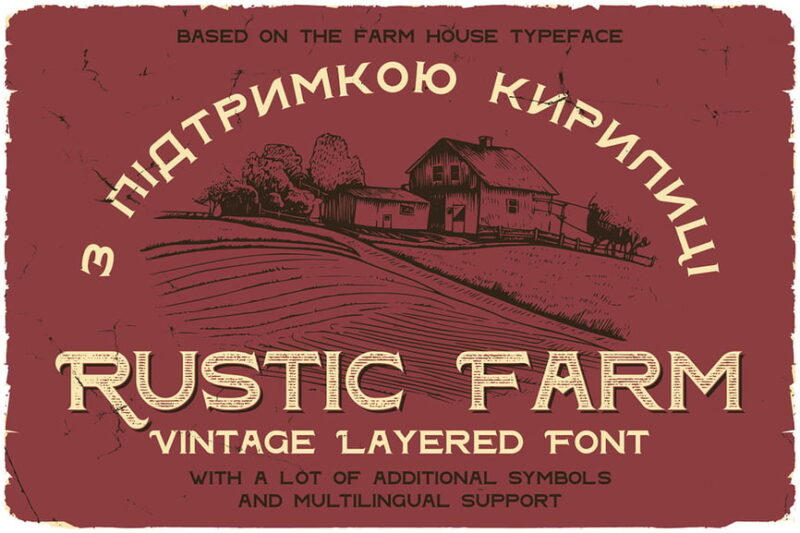
Rustic Farm Display Font brings a touch of rural charm to your designs. This serif typeface embodies the rustic aesthetic, perfect for farm-to-table branding or any project requiring a cozy, down-to-earth feel.
Wild & Noise – Rustic Vintage Serif Typeface
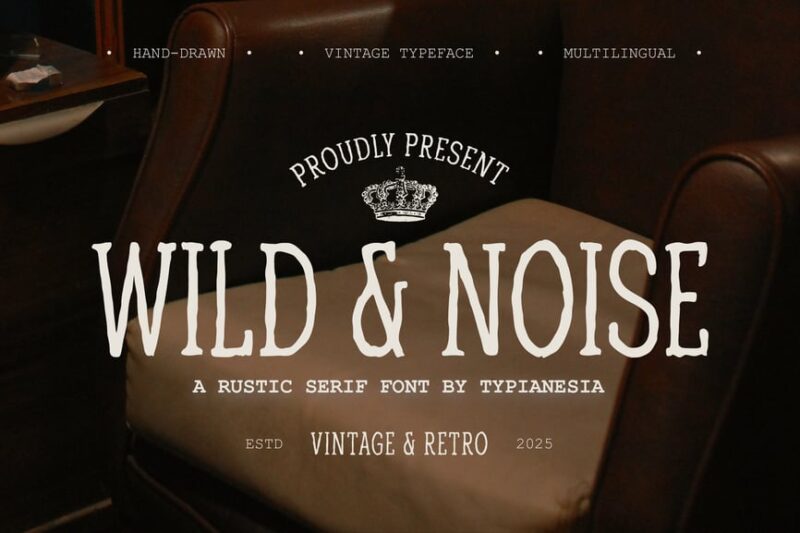
Wild & Noise is a rugged serif typeface that exudes vintage charm. This rustic font is perfect for designs that aim to capture the spirit of the wild west, offering a bold and weathered look for authentic rustic branding.
Norwes – Vintage Monoline Font
Norwes is a vintage monoline sans-serif that brings a coastal rustic vibe to your designs. This font’s clean lines and subtle vintage feel make it versatile for various rustic-themed projects, from beachside cafes to nautical branding.
Rustic Jack – A Vintage Font Duo
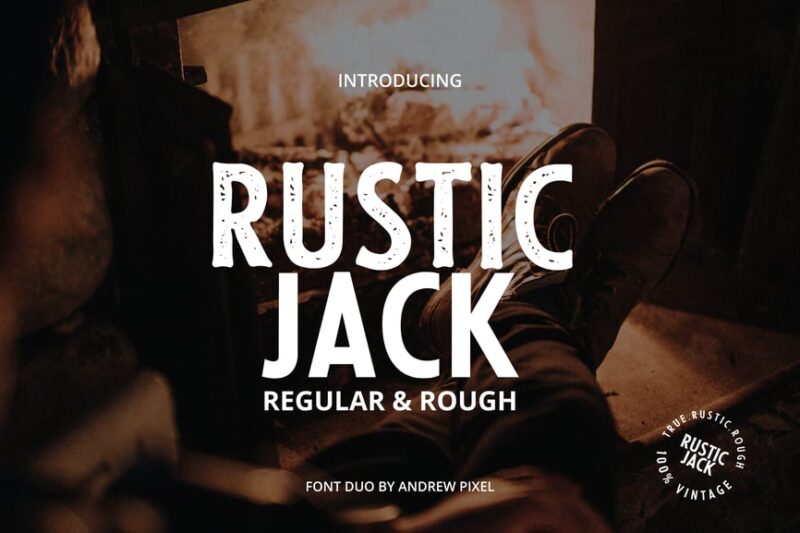
Rustic Jack offers a dynamic vintage font duo that combines sans-serif with western-inspired script. This versatile pair is perfect for creating rustic designs with a touch of old-world charm, ideal for labels, logos, and vintage-style branding.
Flavery – Vintage Slab Serif
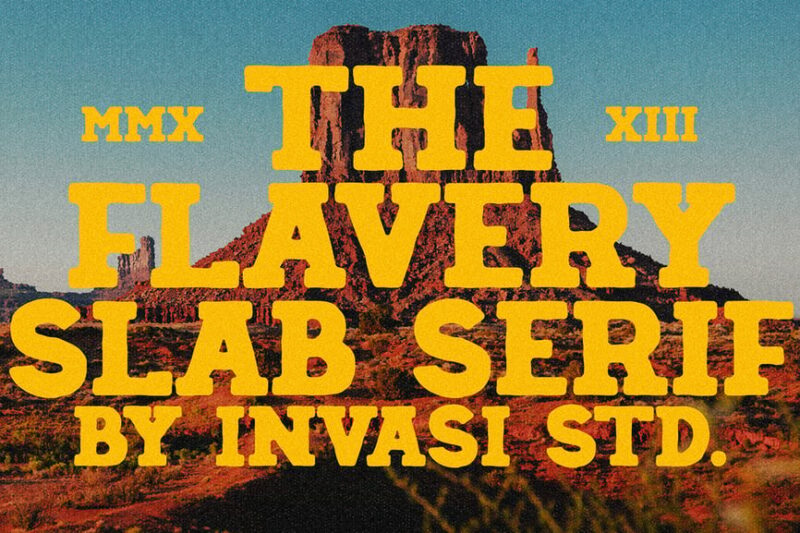
Flavery is a vintage slab serif that brings a western stamp-like quality to rustic designs. This decorative font is perfect for creating eye-catching headlines and logos with a distinct rustic, old-world feel.
Rustic – Handcrafted Font Family
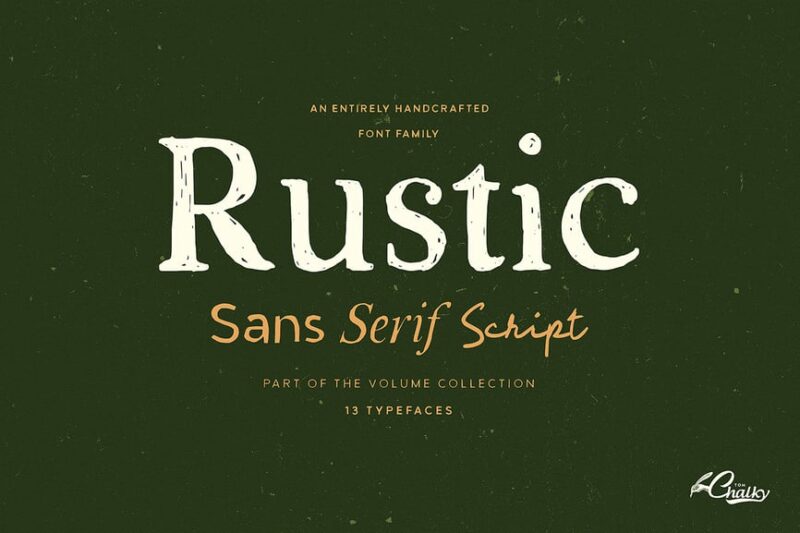
The Rustic Handcrafted Font Family offers a comprehensive set of rustic fonts, including serif, script, and sans-serif styles. This versatile family is perfect for creating cohesive rustic branding with its hand-drawn, textured character.
Rustic Printed – Vintage Font
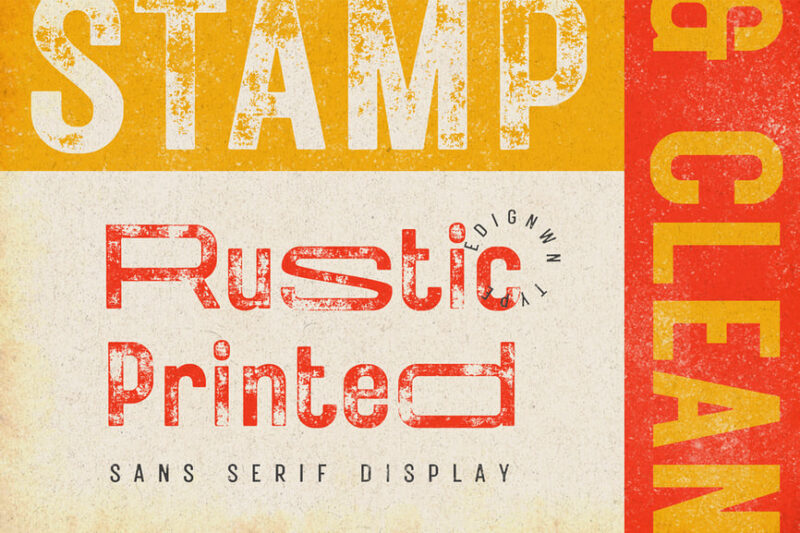
Rustic Printed is a vintage-inspired sans-serif that mimics old letterhead prints. This font brings an authentic rustic touch to designs, perfect for creating nostalgic, weathered-looking text in rustic-themed projects.
Wild Rustic Font Duo
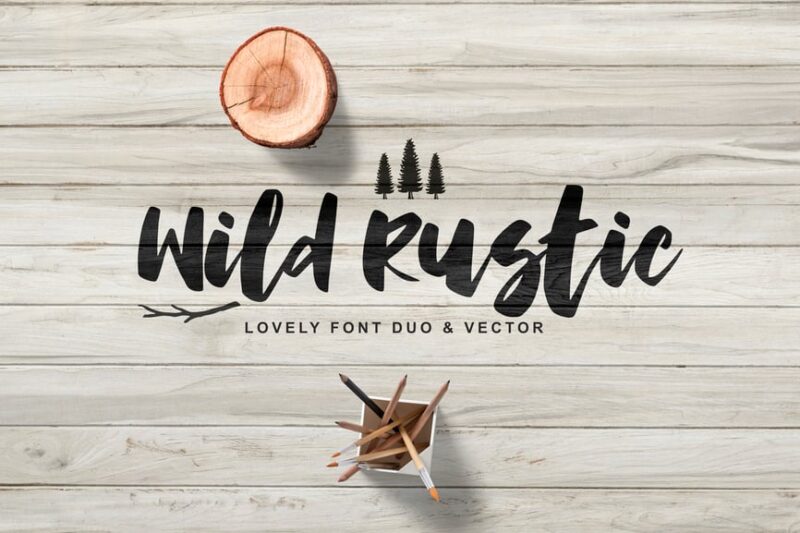
Wild Rustic Font Duo combines script and handwritten styles to create a native, rustic aesthetic. This font pair is ideal for designs that need to convey a sense of wilderness and authenticity, perfect for outdoor brands and rustic-themed events.
Rustic Wedding – Organic Script
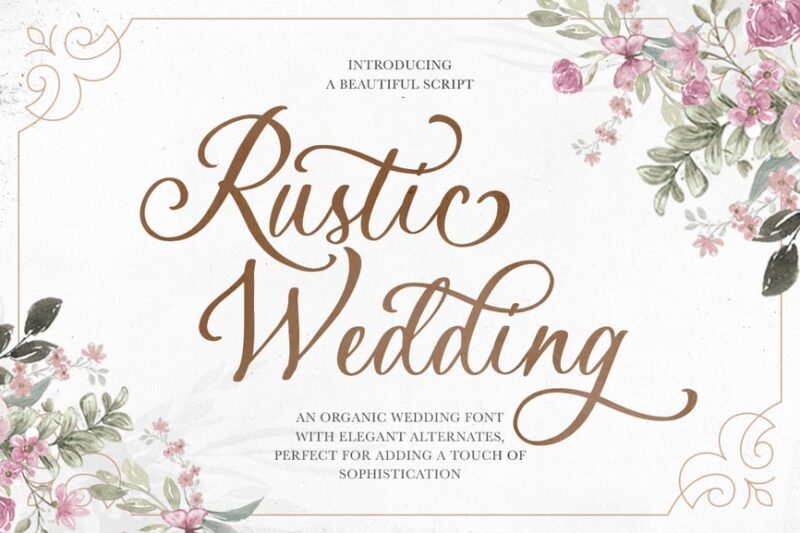
Rustic Wedding is an organic script font that brings elegance to rustic designs. This font is perfect for creating beautiful, nature-inspired wedding invitations and formal rustic-themed stationery with its flowing, handcrafted look.
Rustic Station Typeface
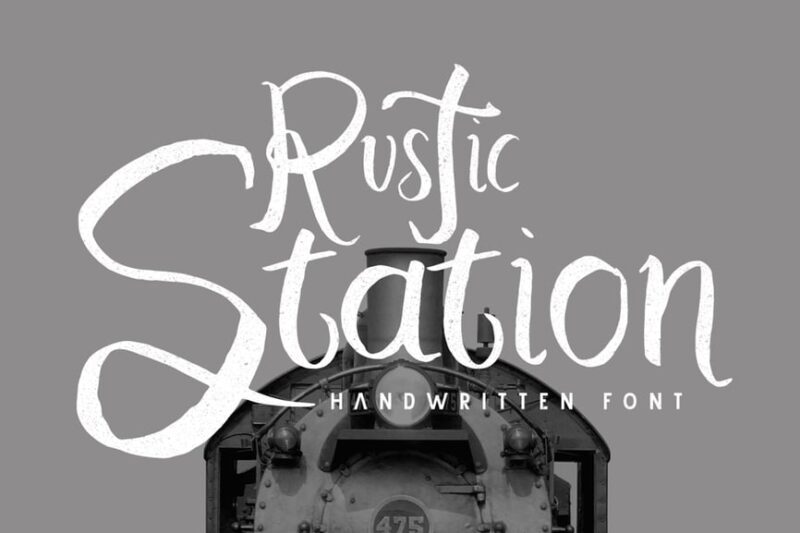
Rustic Station is a versatile typeface that combines script, decorative, and sans-serif styles. This rugged font family is perfect for creating rustic designs with a cursive flair, ideal for branding projects that require a touch of vintage charm.
Forefarmers – Rustic Casual Vintage Font
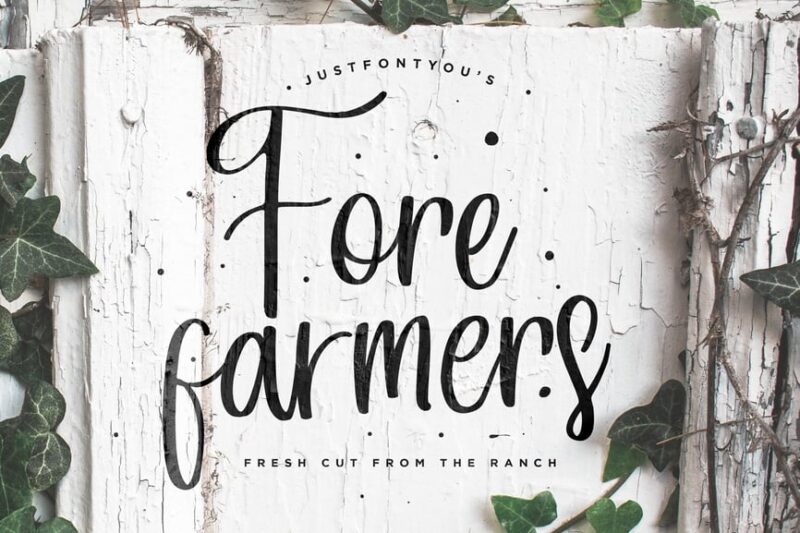
Forefarmers is a rustic casual vintage font that mimics sign painting and signature styles. This handwritten typeface brings an authentic, rustic touch to designs, perfect for creating logos and branding with a handcrafted feel.
So whether you’re drawn to heavily weathered wood type or prefer subtle organic textures, there’s a rustic font out there perfect for your next project. Take your time exploring options, trust your instincts, and don’t be afraid to let that authentic, handcrafted charm shine through.
After all, in a world of digital perfection, there’s something profoundly compelling about designs that feel genuinely human. And that’s exactly what great rustic typography delivers.